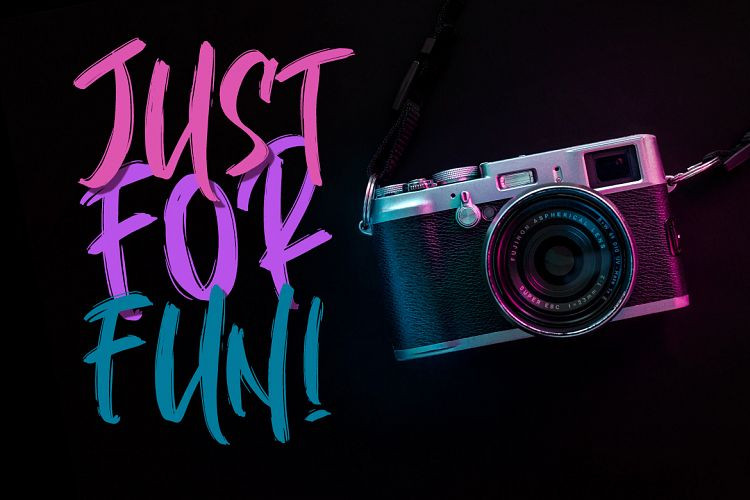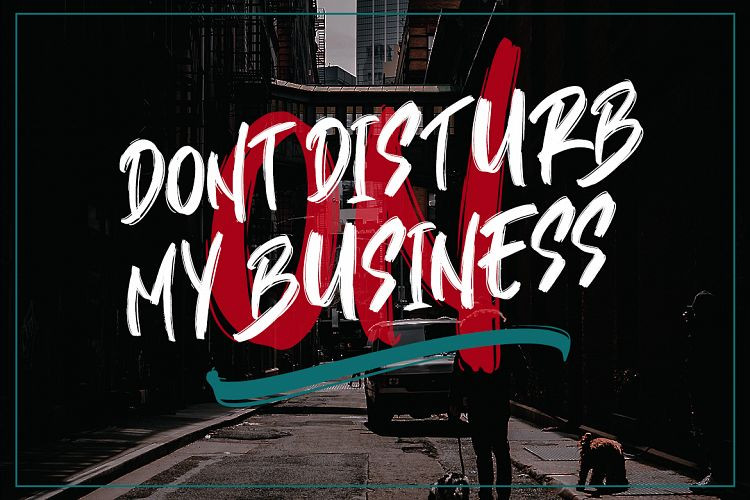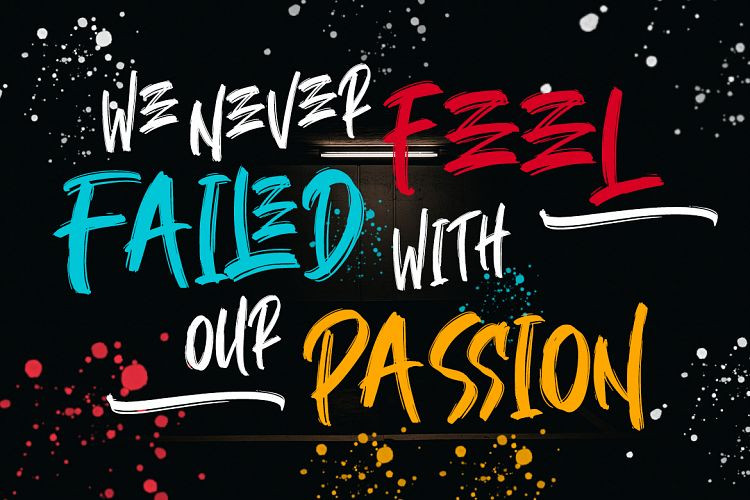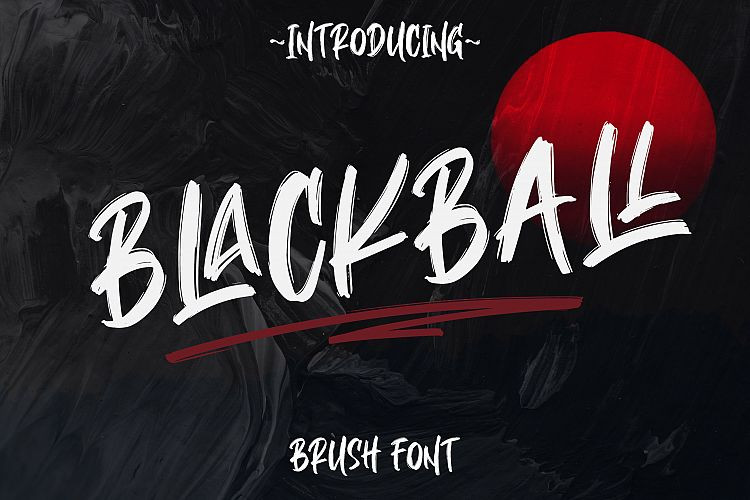
Blackball Brush Font
Hello buddy! Introducing Blackball Font. This is brush script font with hand lettering style. This font looks cool in any design. It is designed and shared by Abraham Type. Made from naturally brush font make your design more powerful. BLACKBALL is a good choice for many different project such as logos & branding, invitation, stationery, wedding designs, social media posts, advertisements, product packaging, product designs, label, photography, watermark, special events or anything.